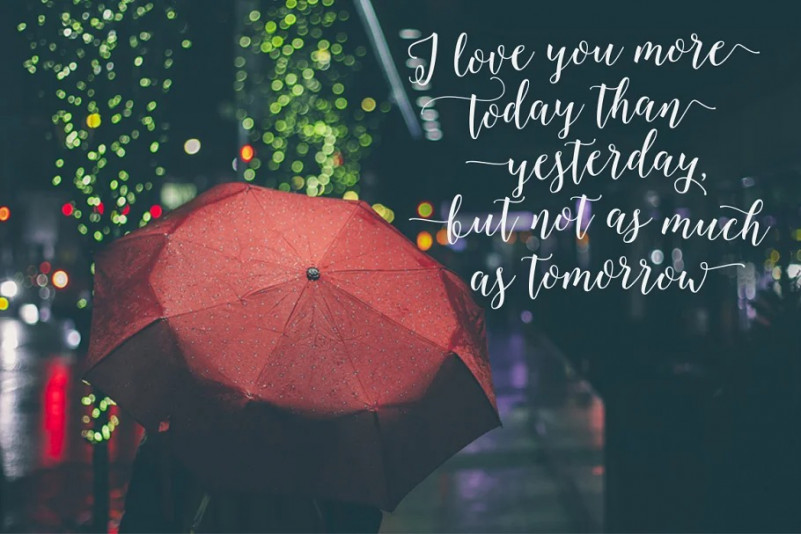
Octavia Script Font
Octavia Script Font is another lovely modern calligraphy typefaces, which is combining the style of classic calligraphy with an modern style. The Features of this fonts is
Contextual Alternates
Discretionary Ligatures
Stylistic Alternates
Initial and Terminal Forms that setting up in Contextual swashes ( This fonts is automatically setting the initial and terminal forms as default, and if you want to turn off the initial and terminal just click the button of the contextual swashes, it more easier than opening the glyph tab)